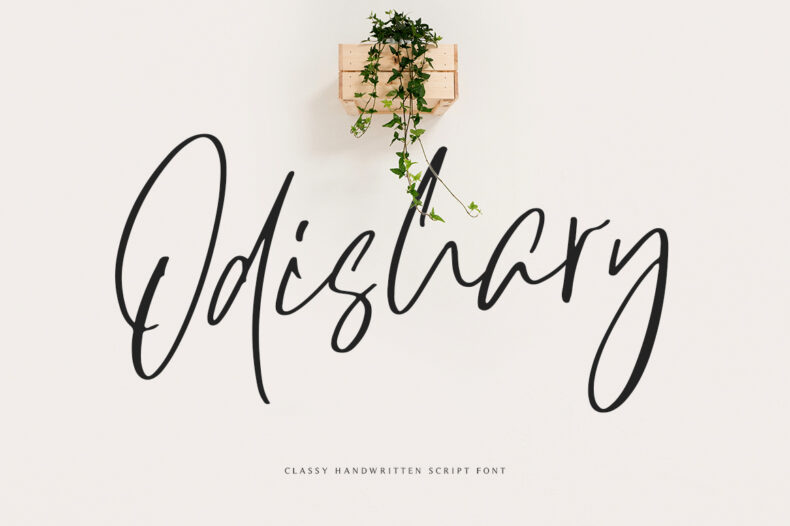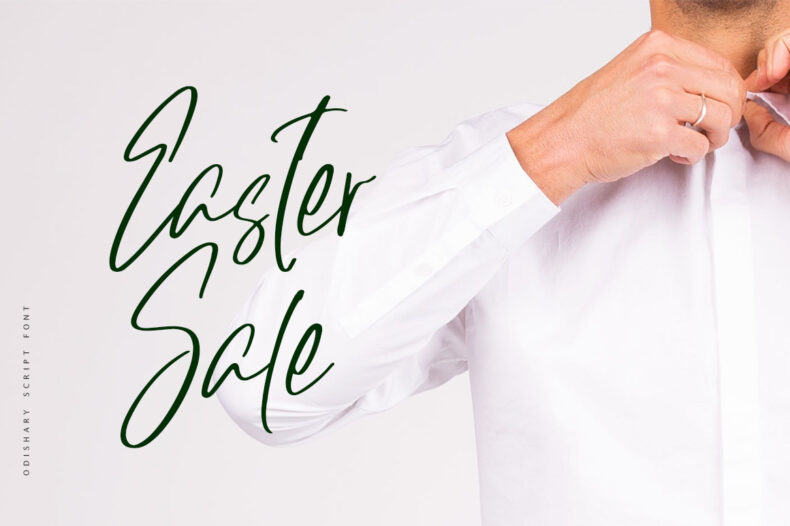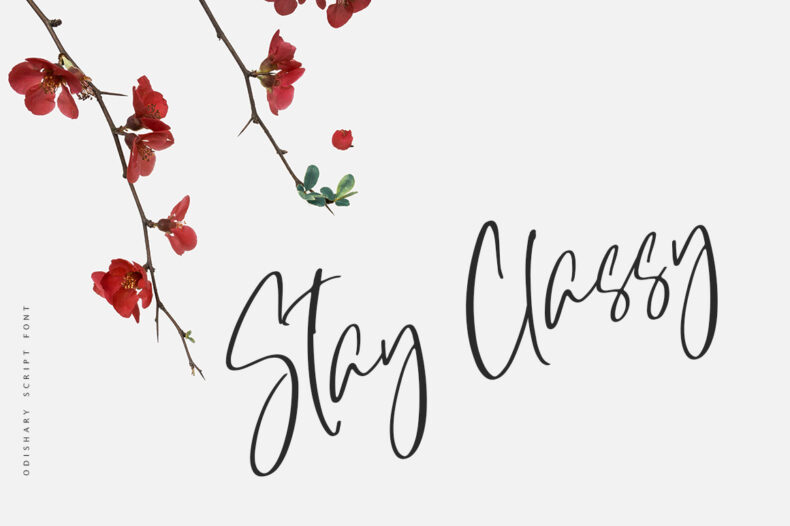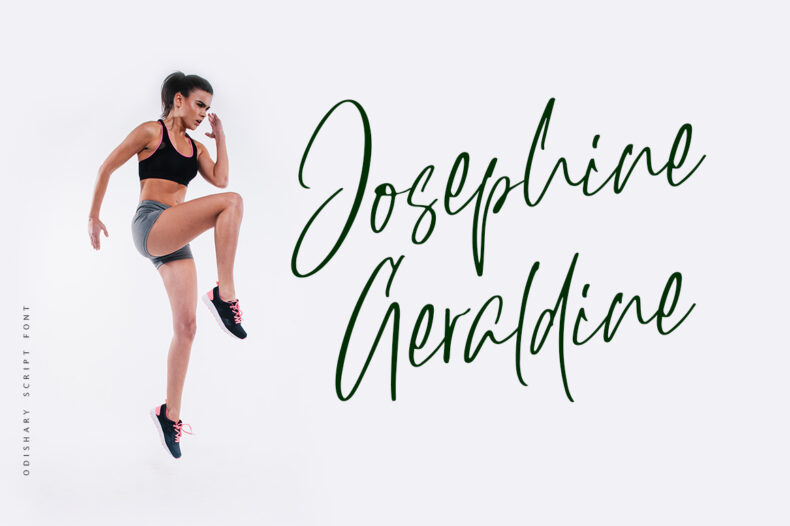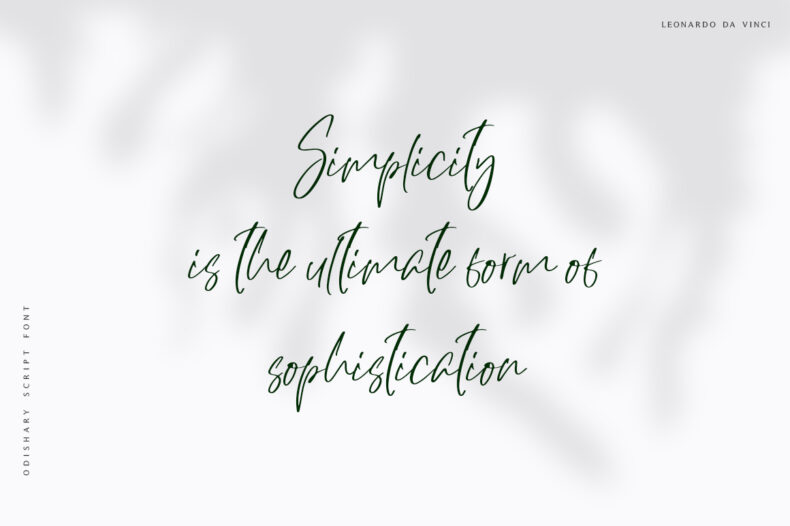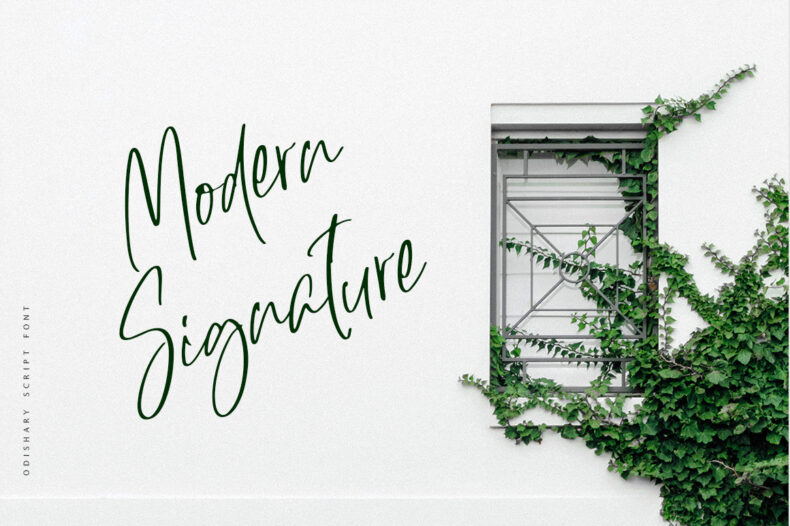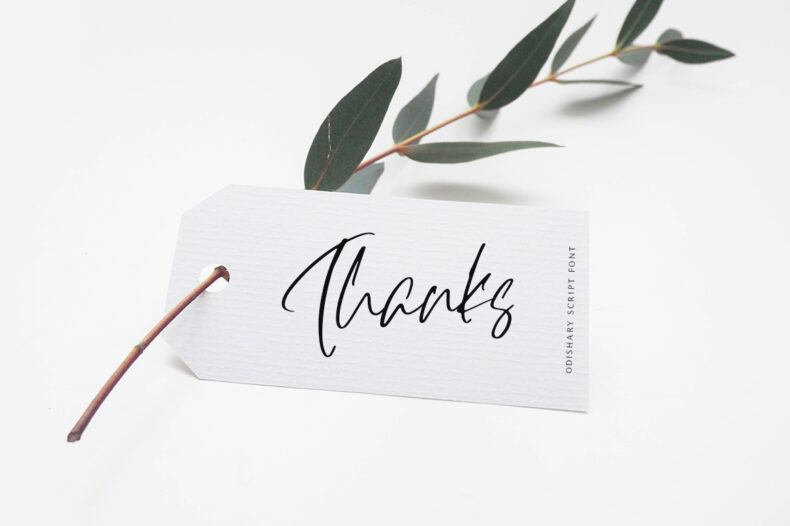
Odishary, Handwritten Font
Odishary, classy handwritten font that designed for minimalist design projects. It’s perfect for fashion project, logo, branding, quote, posters, movie or cinema. Odishary packed with uppercase, lowercase, numeral & punctuation, accents (Multilingual Support). This font will handle your minimalist design project with simplicity.
Feature
Ligature